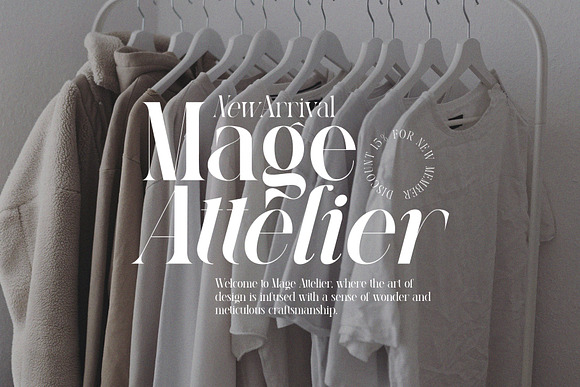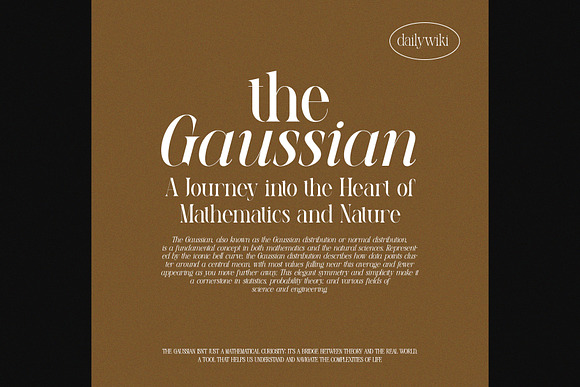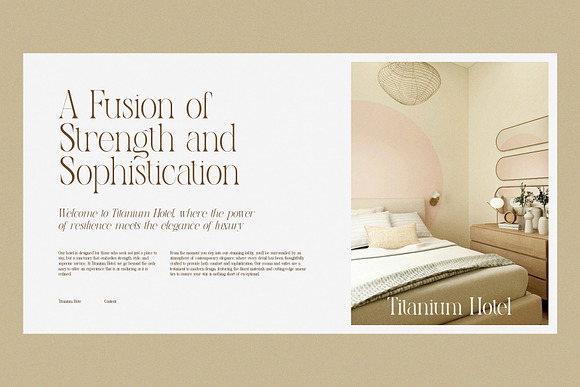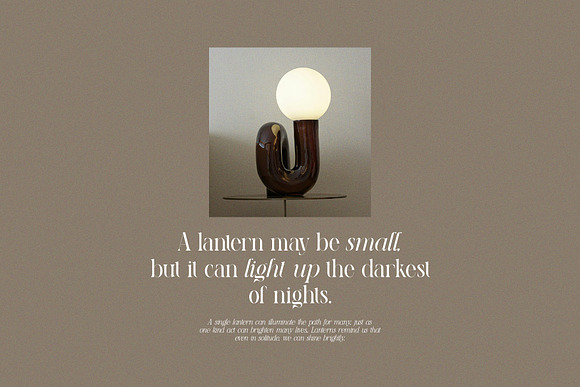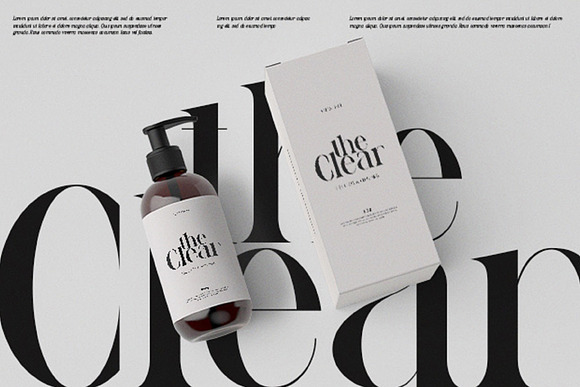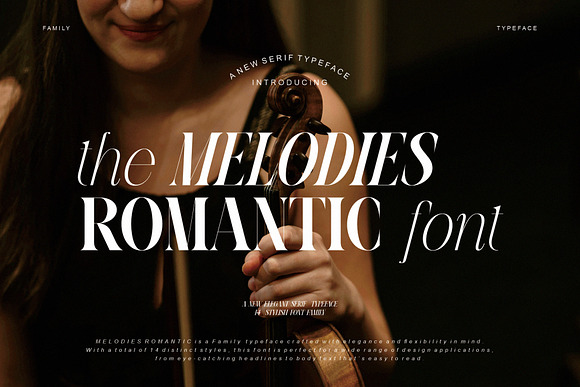
MELODIES ROMANTIC Elegant Serif Font
MELODIES ROMANTIC is a Modern and stylish serif family font, which includes 14 style fonts, bold italic fonts, from thin to extra bold, best used for titles, descriptions, logos, branding, magazines, product packaging, and invitation. Its stylish alternations and bindings with clean lines and smooth curves add an extra touch of class to any project. make this font the perfect partner for any project. Accessible in the Adobe Illustrator, Adobe Photoshop, Corel Draw. PUA Encoded Characters - Fully accessible without additional design software. Fonts include multilingual support Image used : All photographs/pictures/vector used in the preview are not included, they are intended for illustration purpose only.